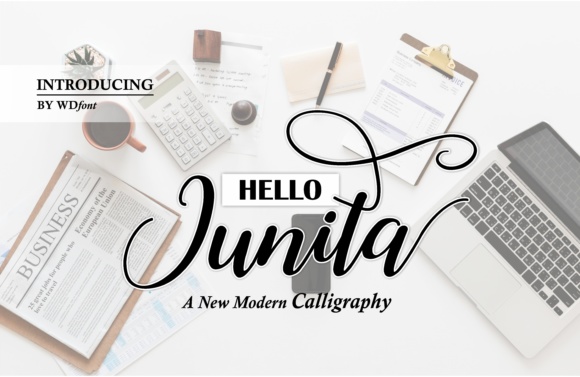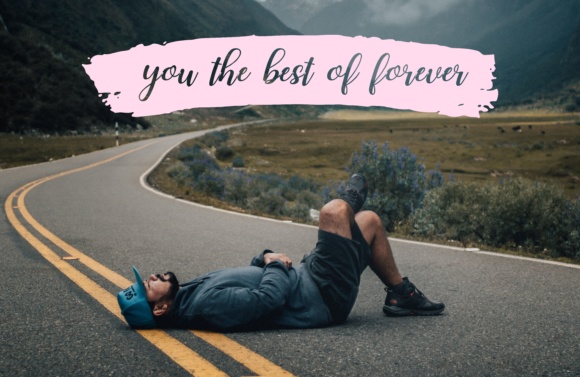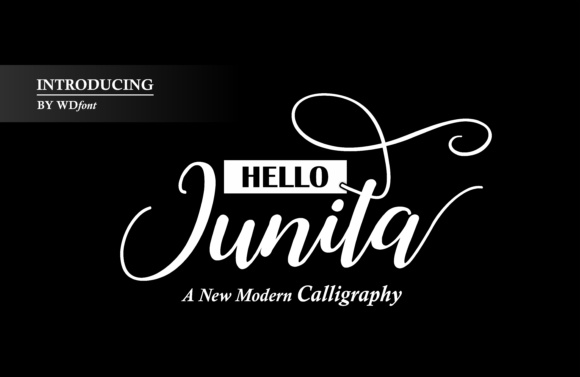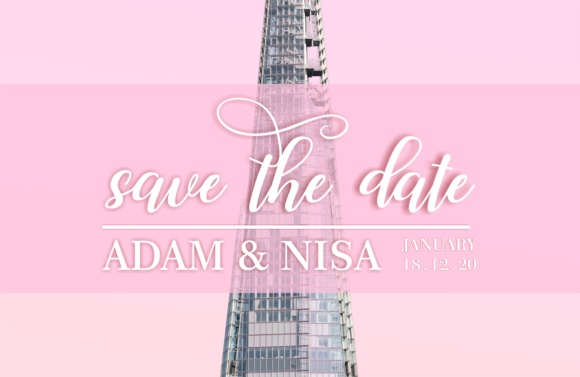
Hello Junita Font
About Hello Junita Font
Hello Junita is a connecting script with a dancing baseline, designed to convey elegance and style. Hello Junita is clean, feminine and friendly. All designs will have a wonderful homemade touch with Hello Junita, a gorgeous script font.